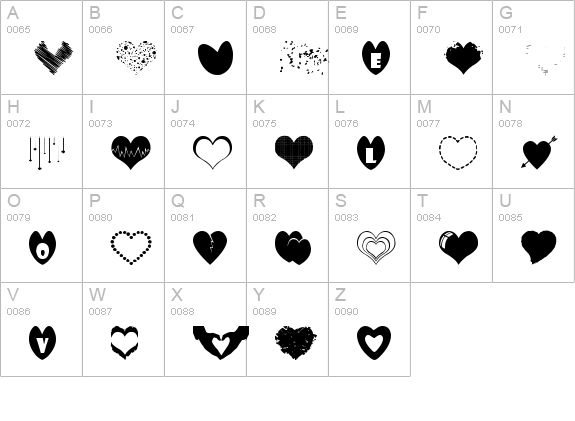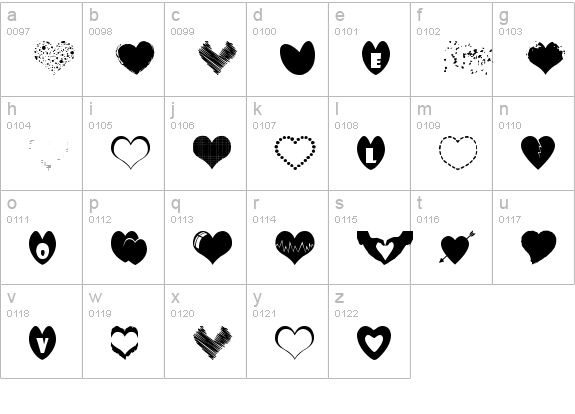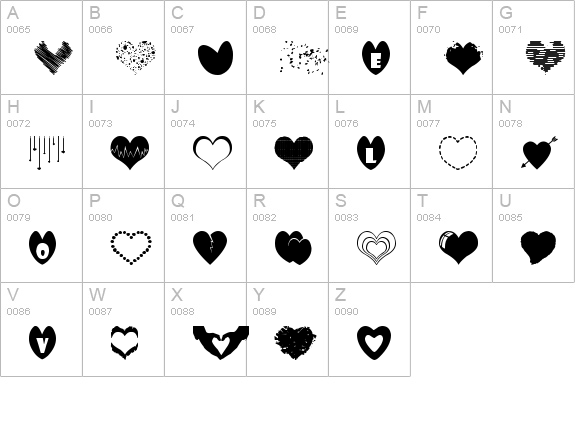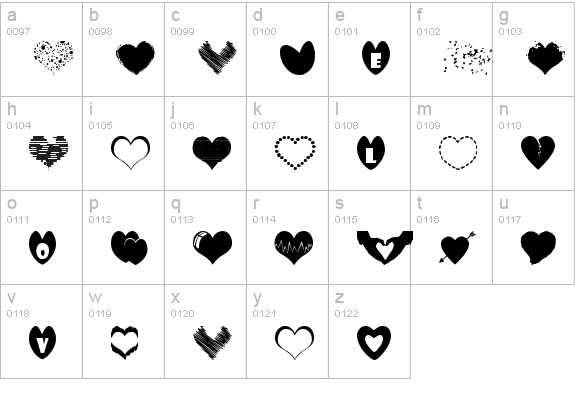
Sexy Love Hearts Font Details
Introducing Sexy Love Hearts font, a stunning display font that exudes an undeniable charm and sensuality. With its intricate heart-shaped design and elegant curves, this font is the epitome of passion and desire. Every letter is delicately crafted to resemble an alluring heart, giving your designs a touch of romance and allure. But what sets Sexy Love Hearts font apart from others is not just its captivating design, but also its accessibility. This font is available for free download at FontsMarket.com, ensuring that everyone can add a touch of passion to their projects without breaking the bank. Whether you're creating invitations for a romantic wedding, crafting a heartfelt love letter, or designing a sensual advertisement, Sexy Love Hearts font will elevate your work to new levels of beauty and seduction. The versatility of Sexy Love Hearts font allows it to be used in a variety of contexts, from romantic occasions to bold branding campaigns. Its captivating and playful nature makes it perfect for greeting cards, social media posts, logo designs, and more. The possibilities are endless, and with this font, you can truly express your emotions and capture the attention of your audience. With its free availability at FontsMarket.com, Sexy Love Hearts font is a must-have for any designer or creative individual looking to add a touch of romance to their work. So don't miss out on this opportunity to embrace the power of love and passion in your designs. Download Sexy Love Hearts font today and let your creativity soar to new heights.